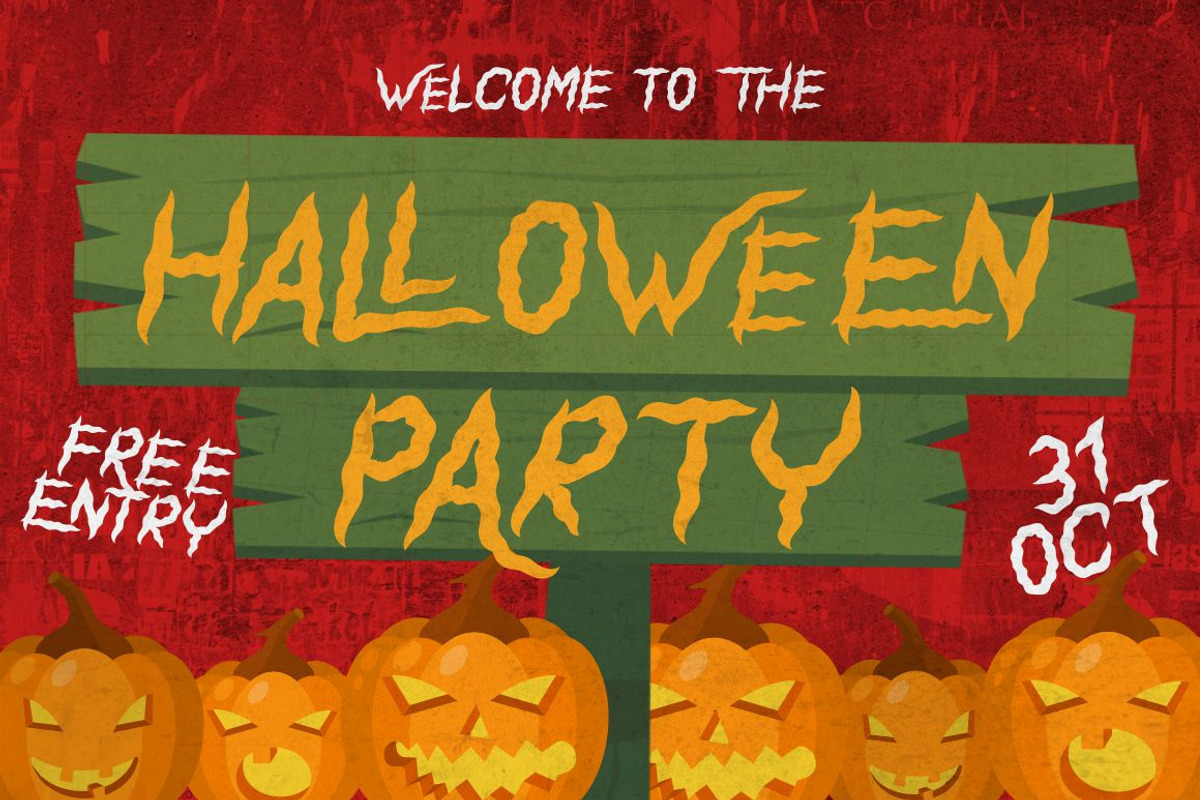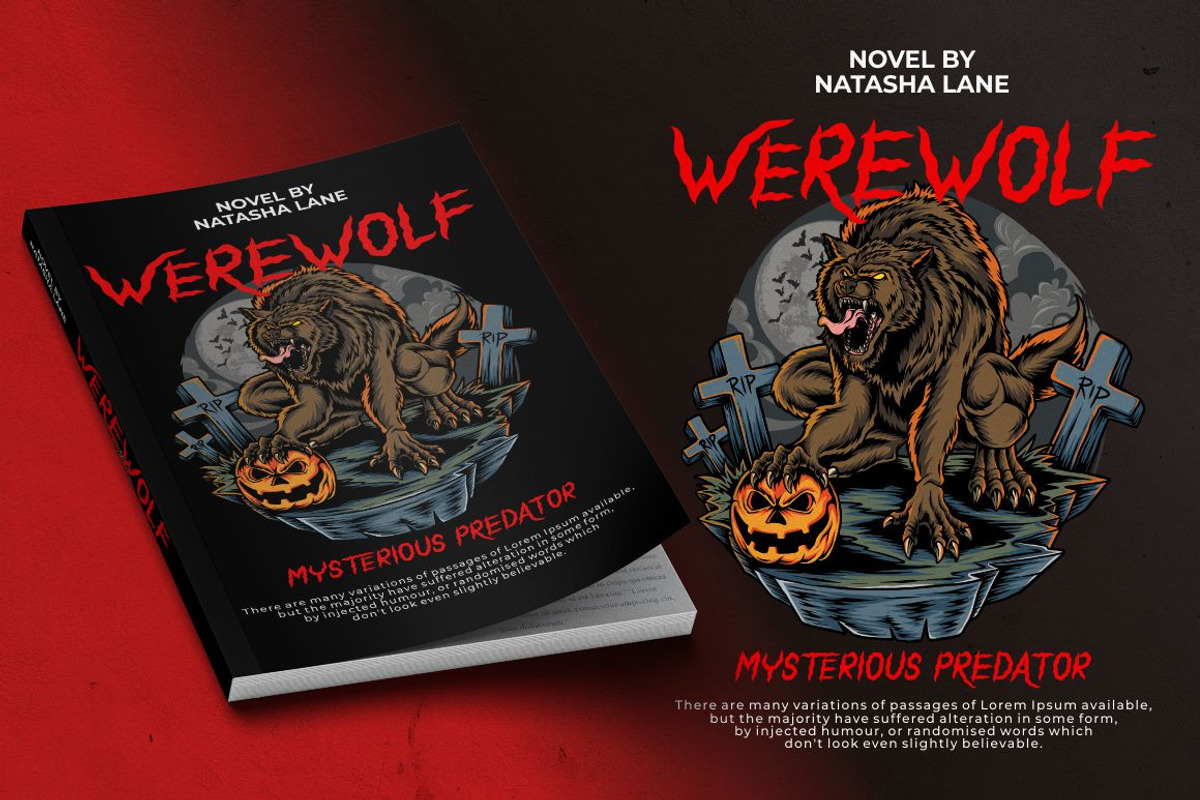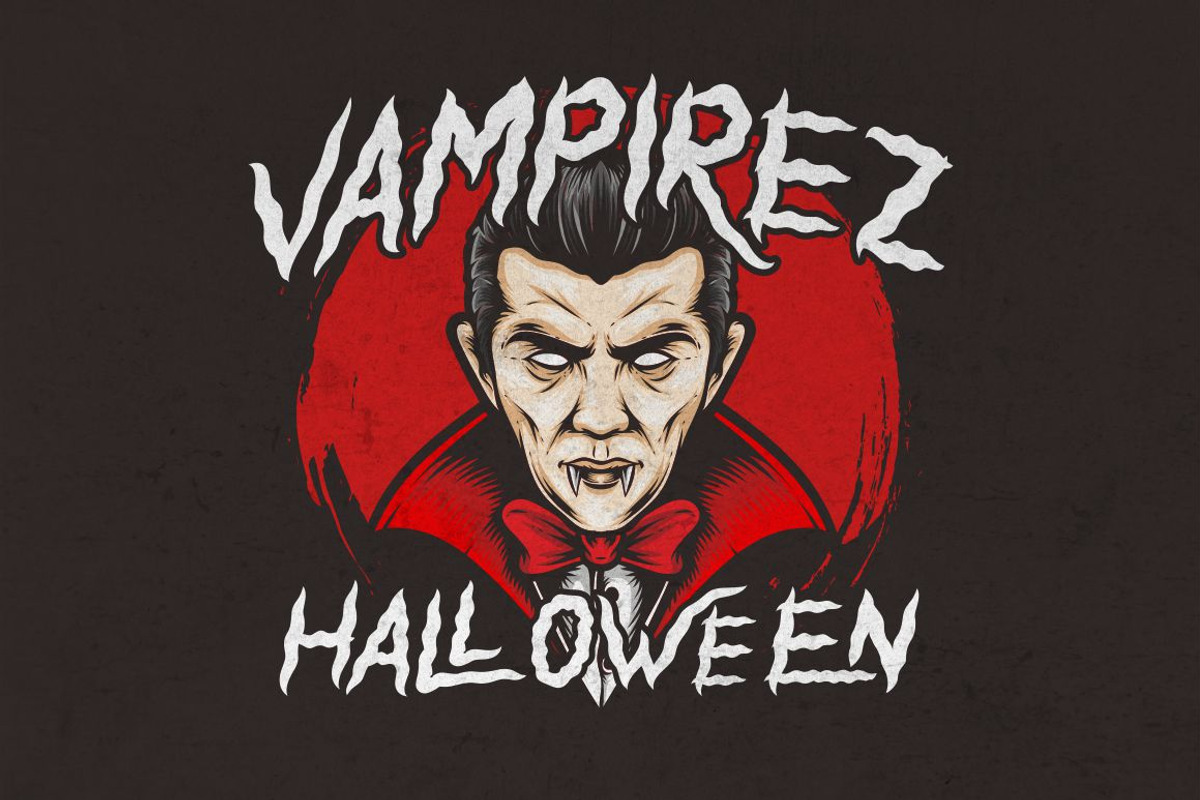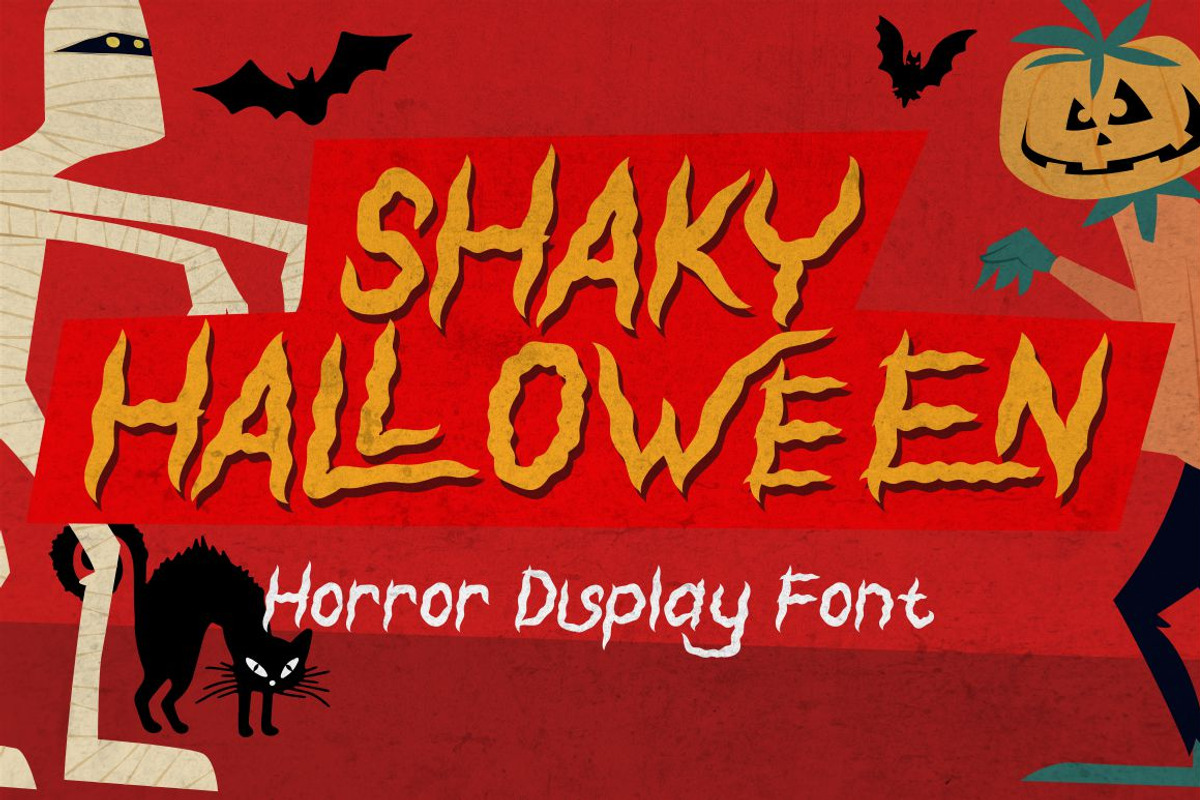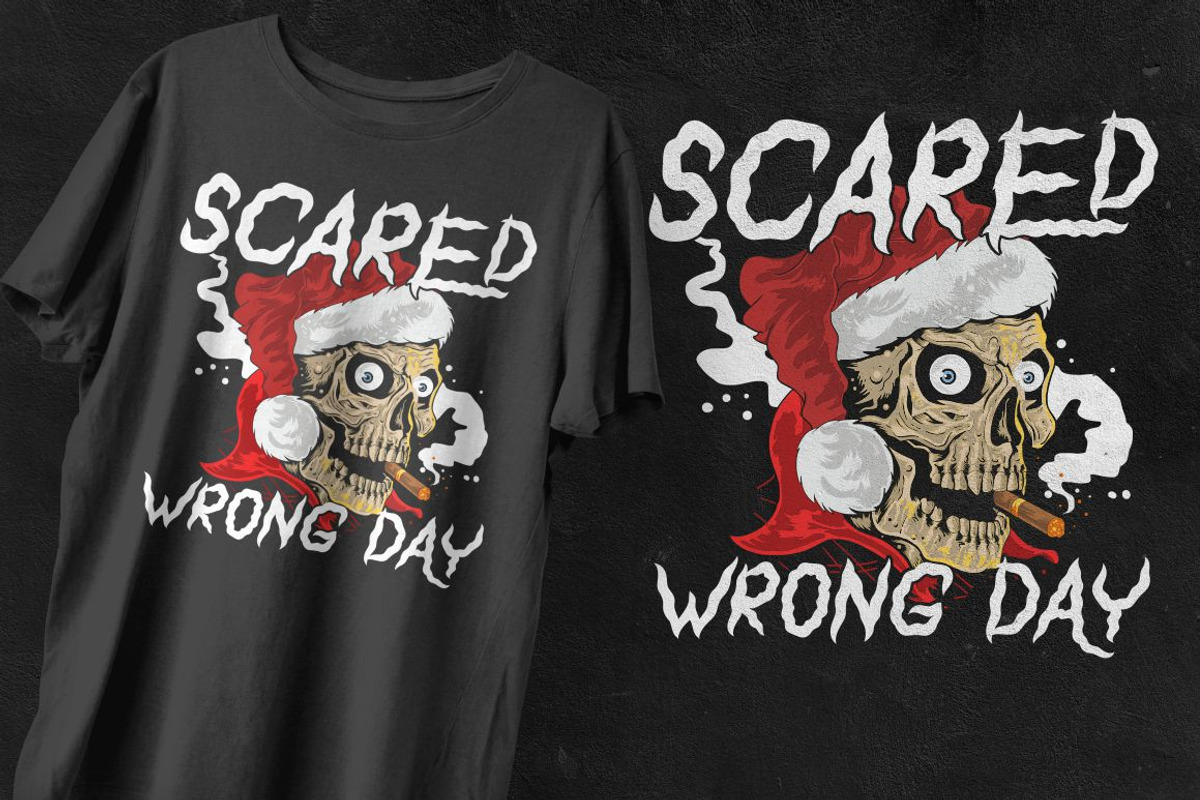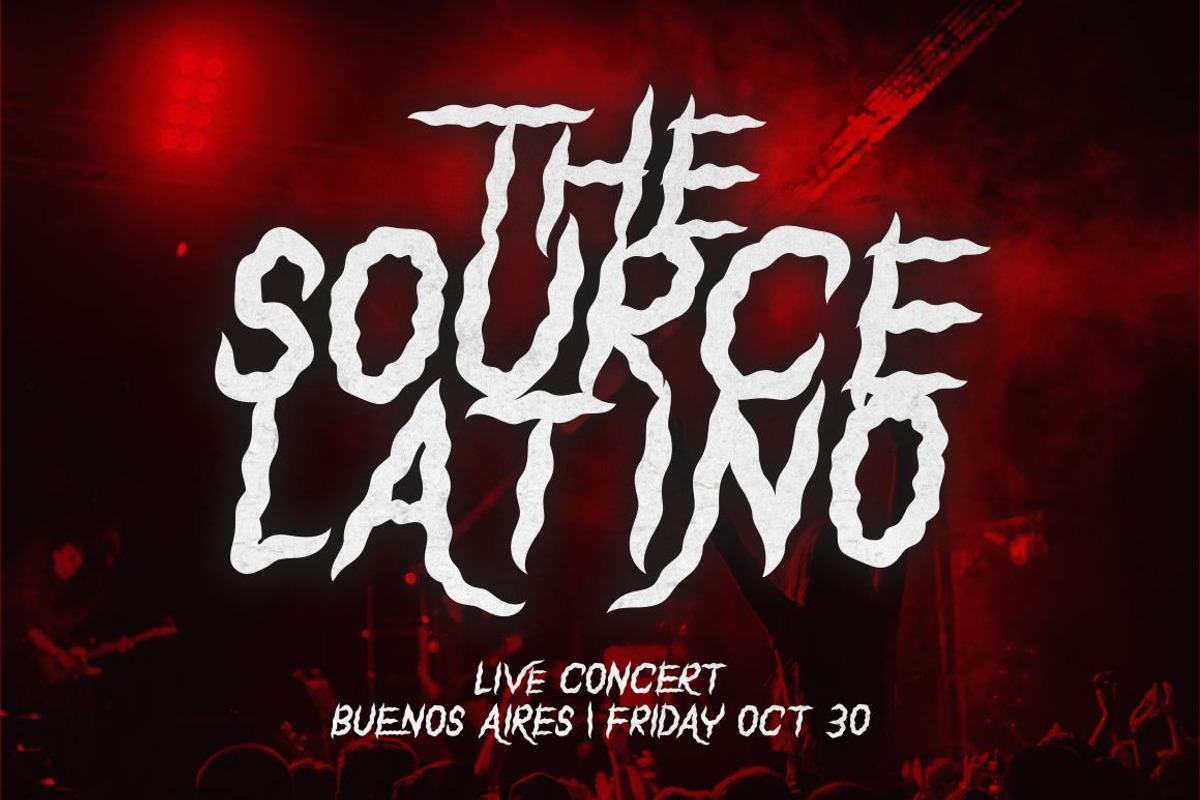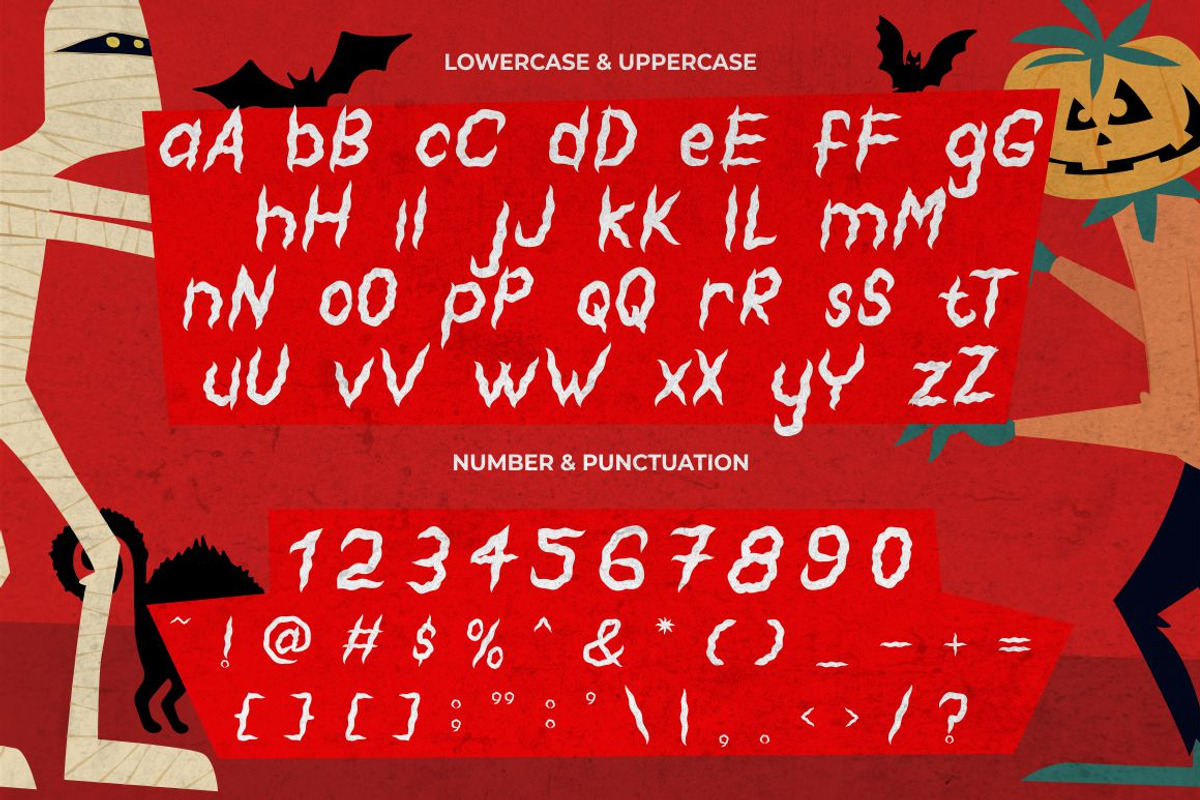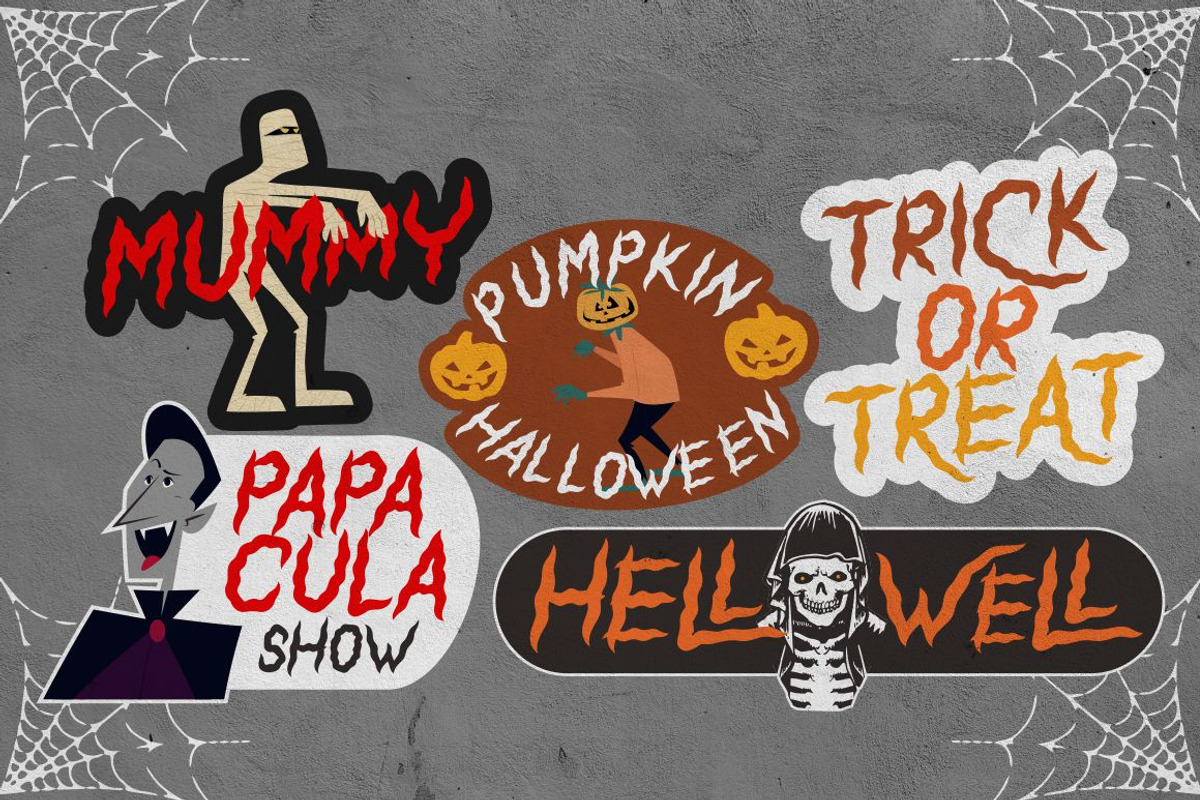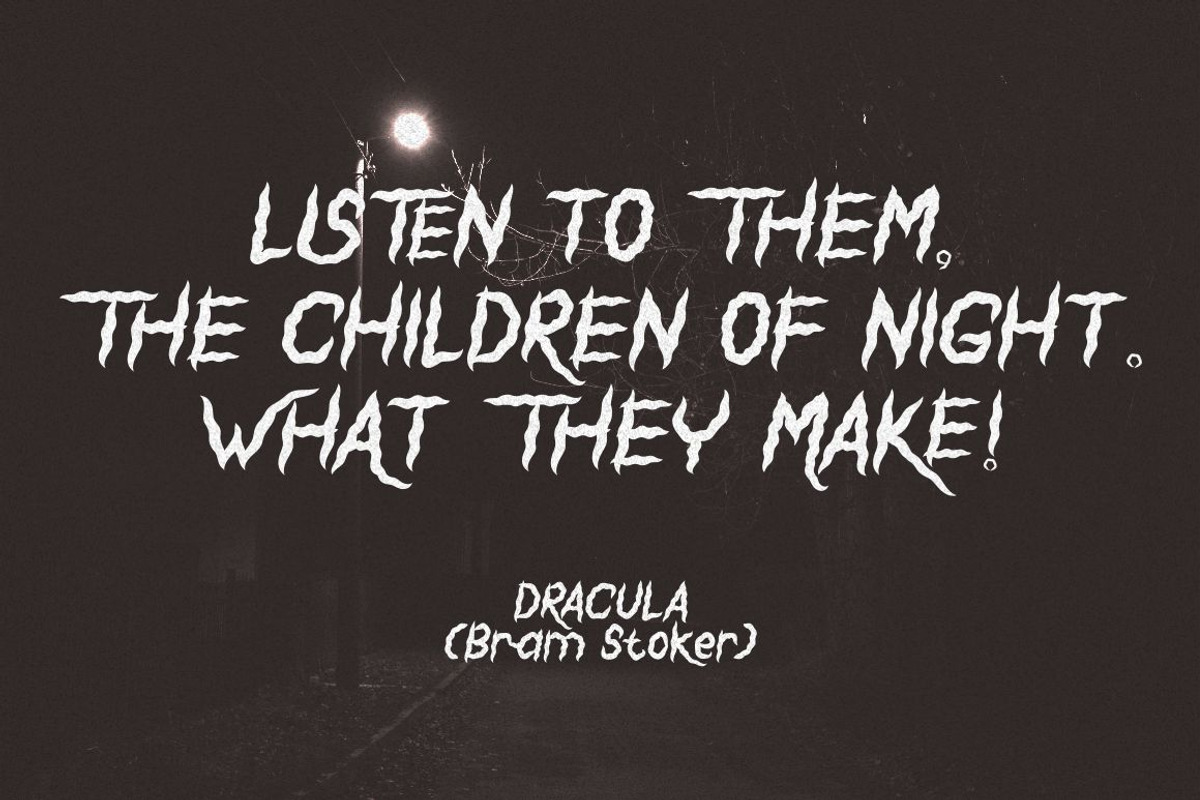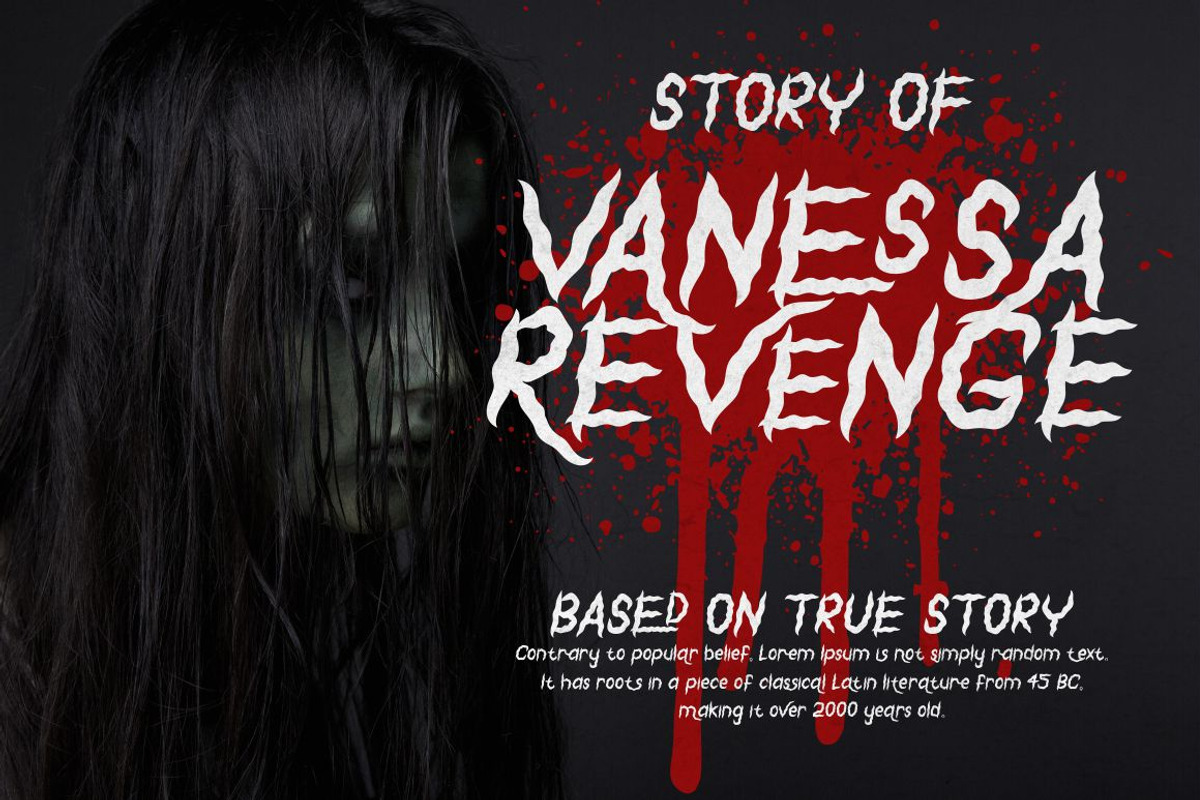
Shaky Halloween - Horror Display
Shaky Halloween - Horror Display Font
Shaky Halloween is a horror display font. This font is inspired by movie titles and some horror logos.
The impression of horror is highly emphasized, but the alternate character of this font that curves at the beginning and end of the letter makes this font very suitable to be used as a logo and poster.
Shaky Halloween would be perfect for Logo, title, logotype, cover, headline, apparel, comic, cover books, cards, posters, or anything that requires a horrror or halloween!
- Opentype (Alternates And Ligatures)
- Number, Punctuation And Symbols
- Multilanguage Support.